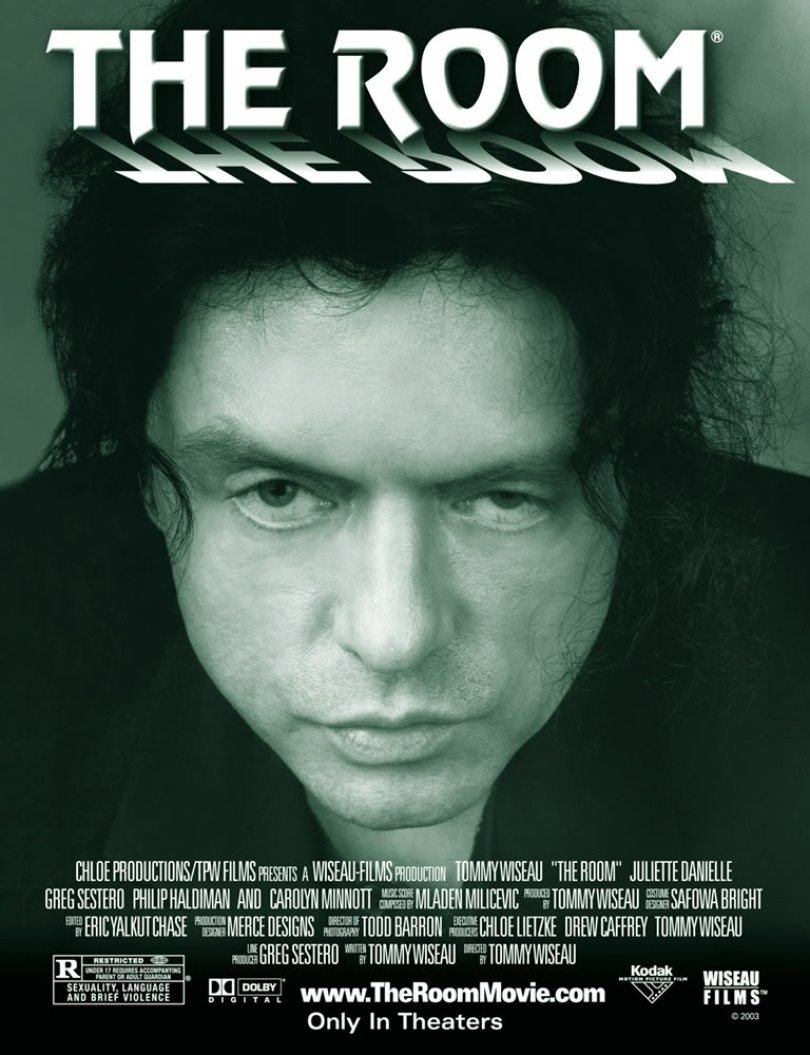
The Room (film) Font
DramaThe Room is a 2003 independent drama film written, directed, produced by and starring Tommy Wiseau. It tells the story of a love triangle between a banker, his fiancée, and his best friend, ultimately leading to betrayal and tragedy.
The film poster features the Revue font, designed by Colin Brignall in 1968 and inspired by early 1900s posters. It's a display sans serif font with bow-shaped letterforms, clipped strokes on some capitals, and an irregular baseline.